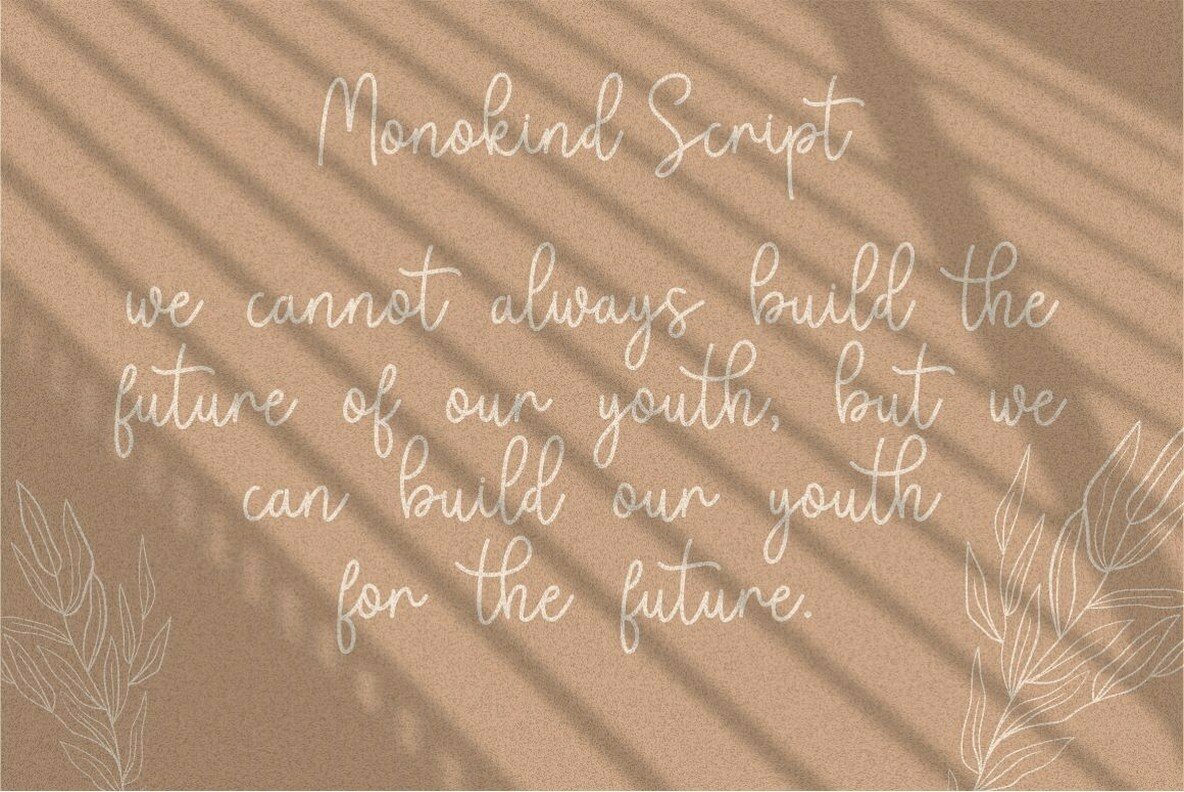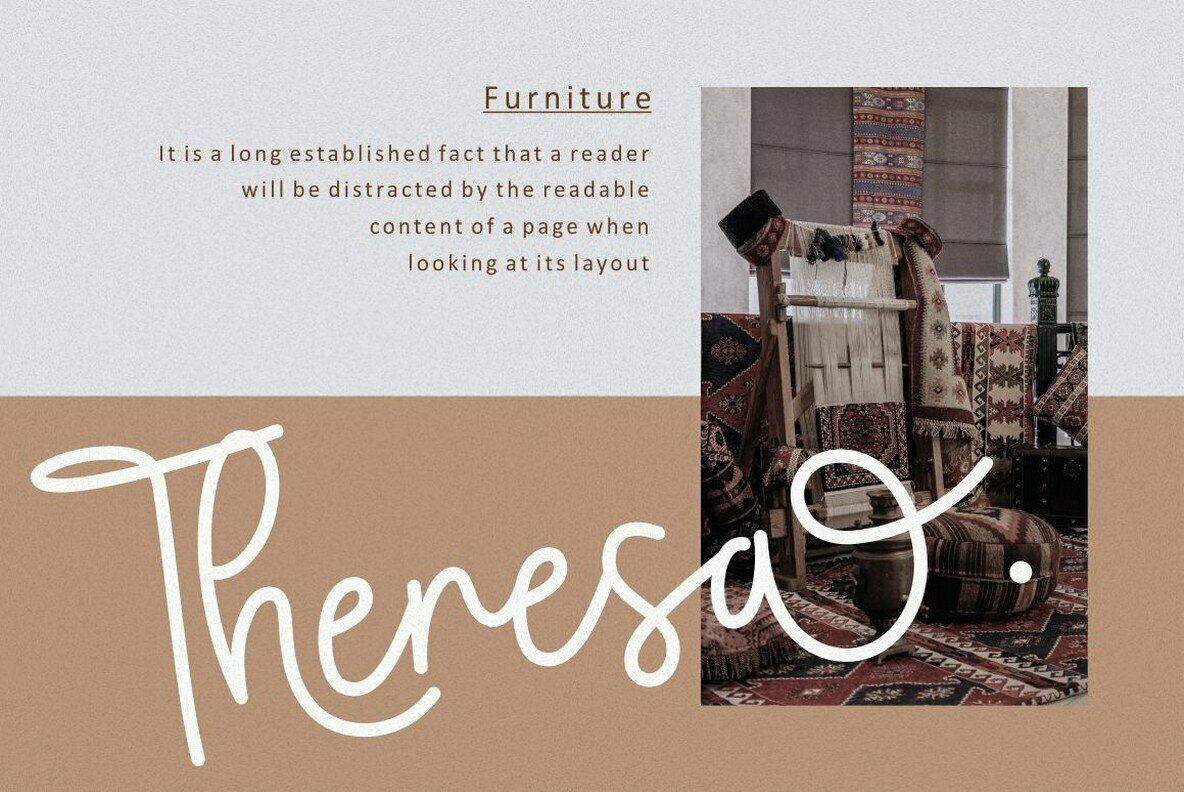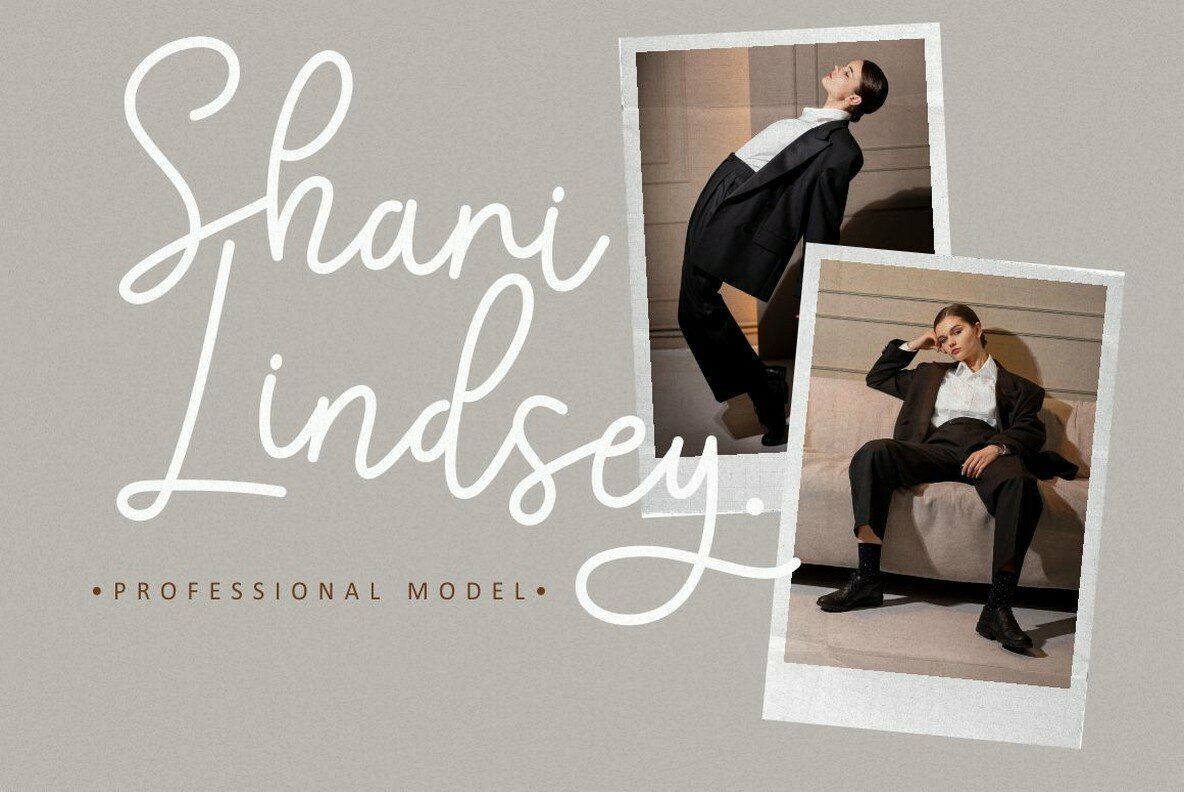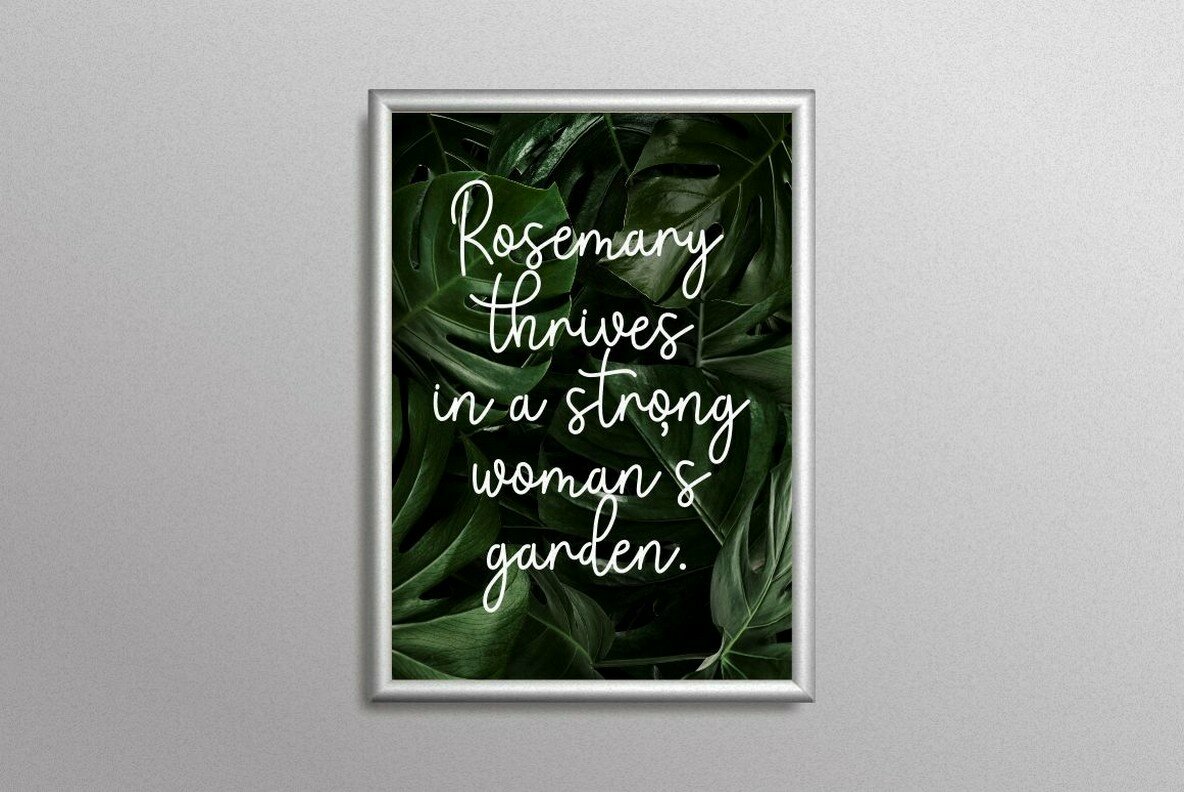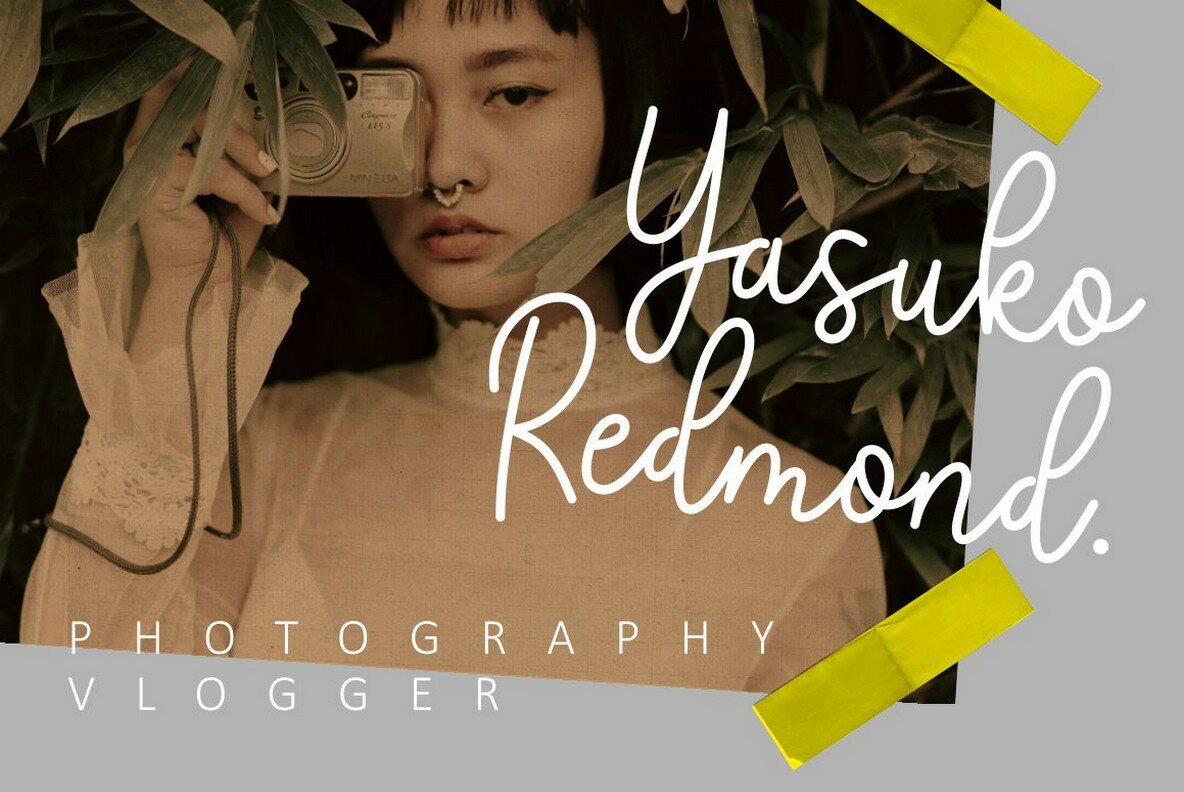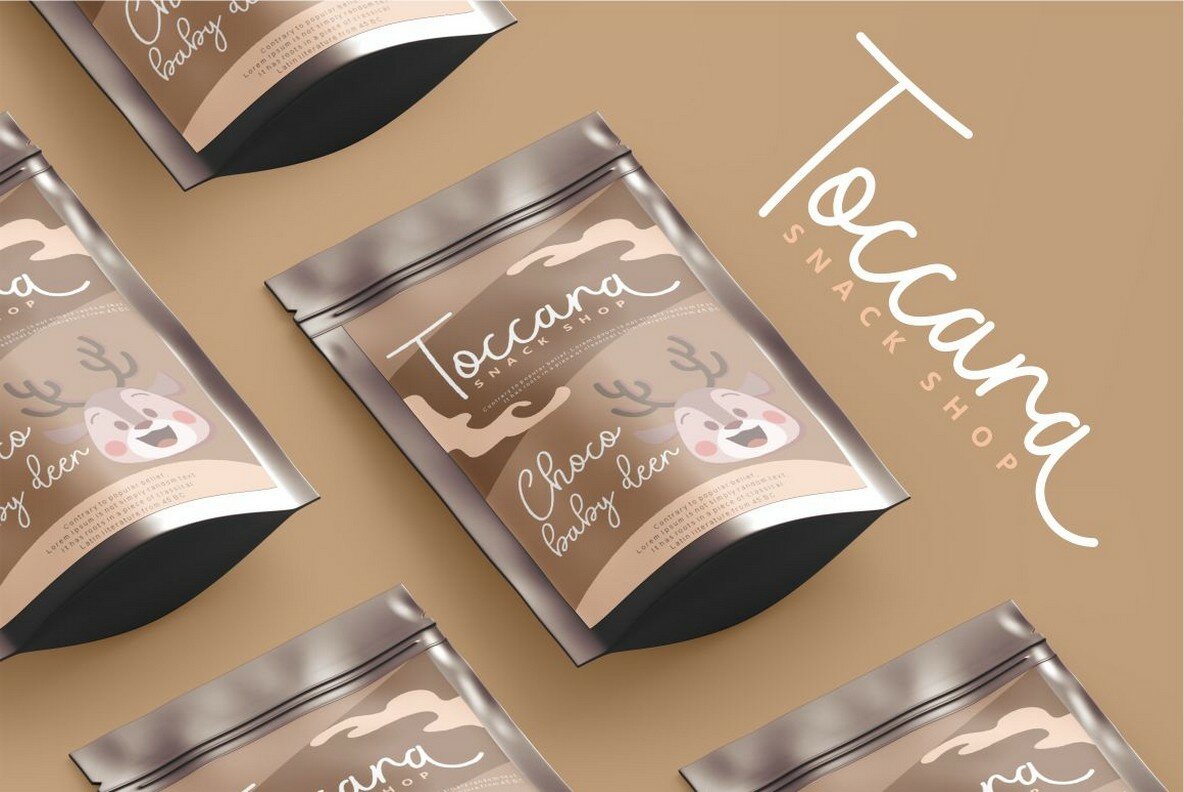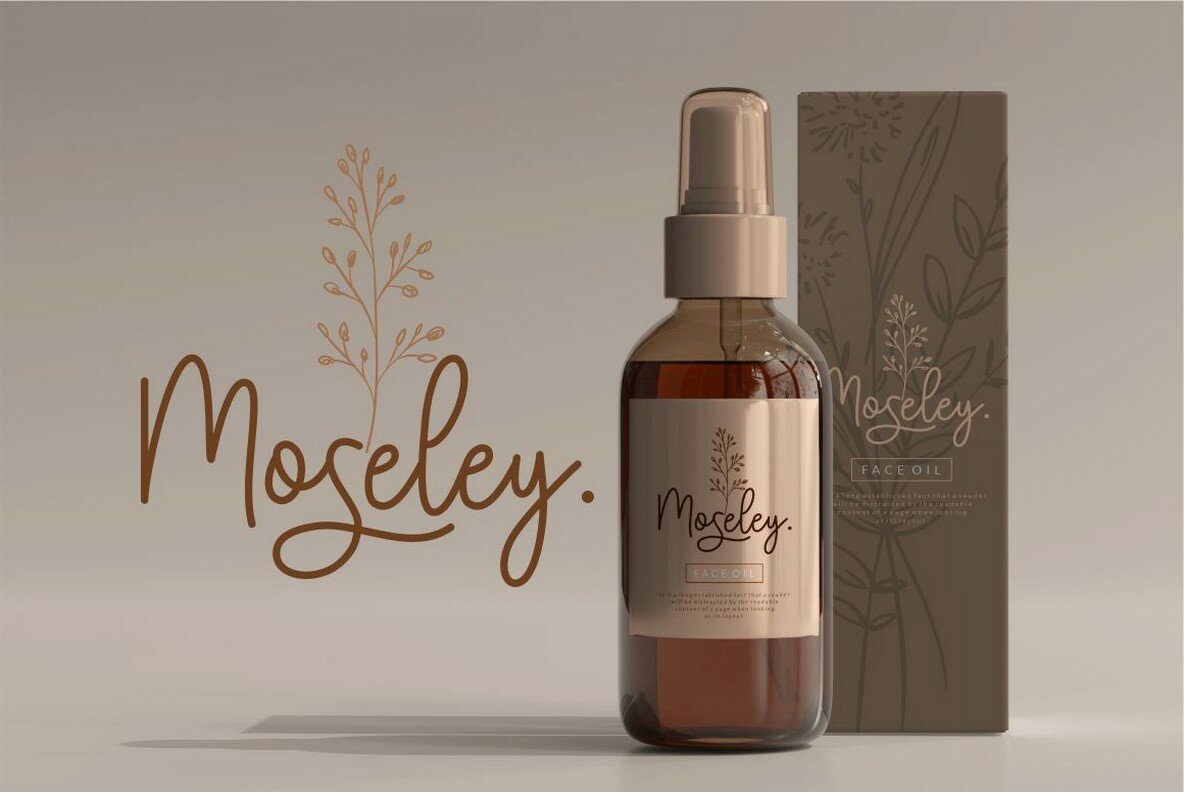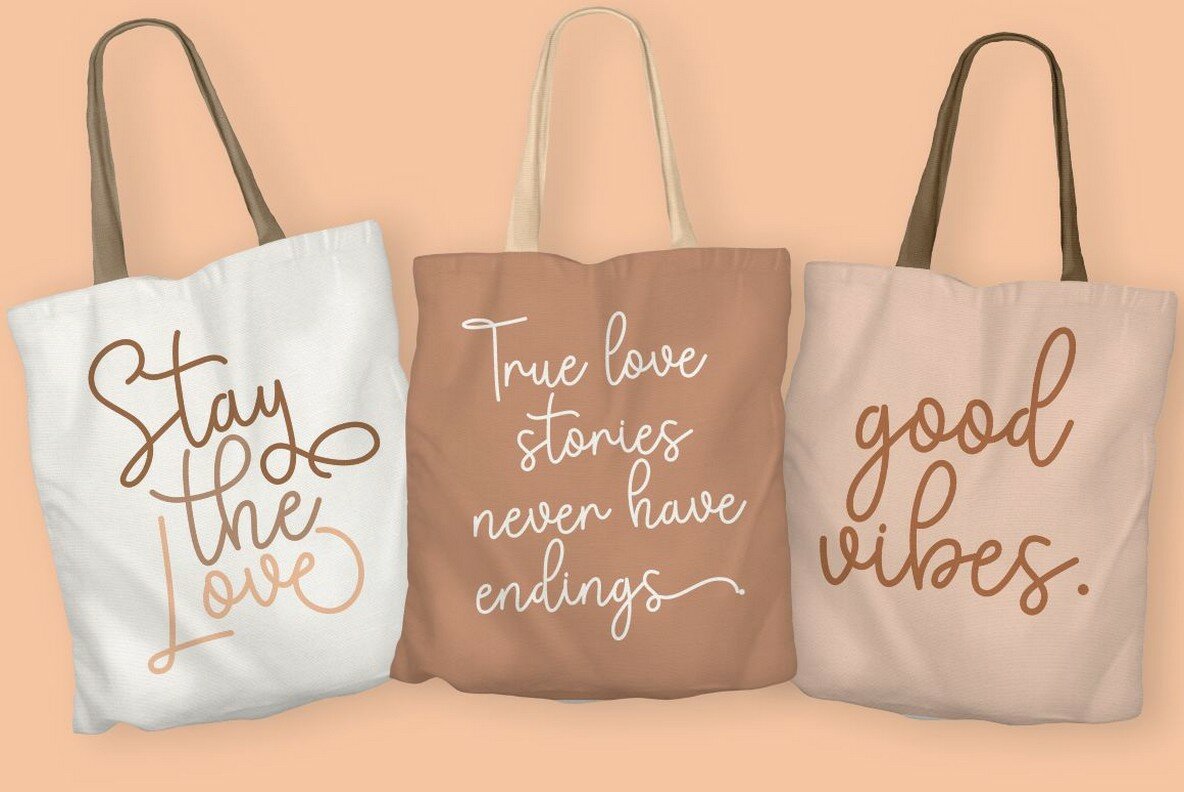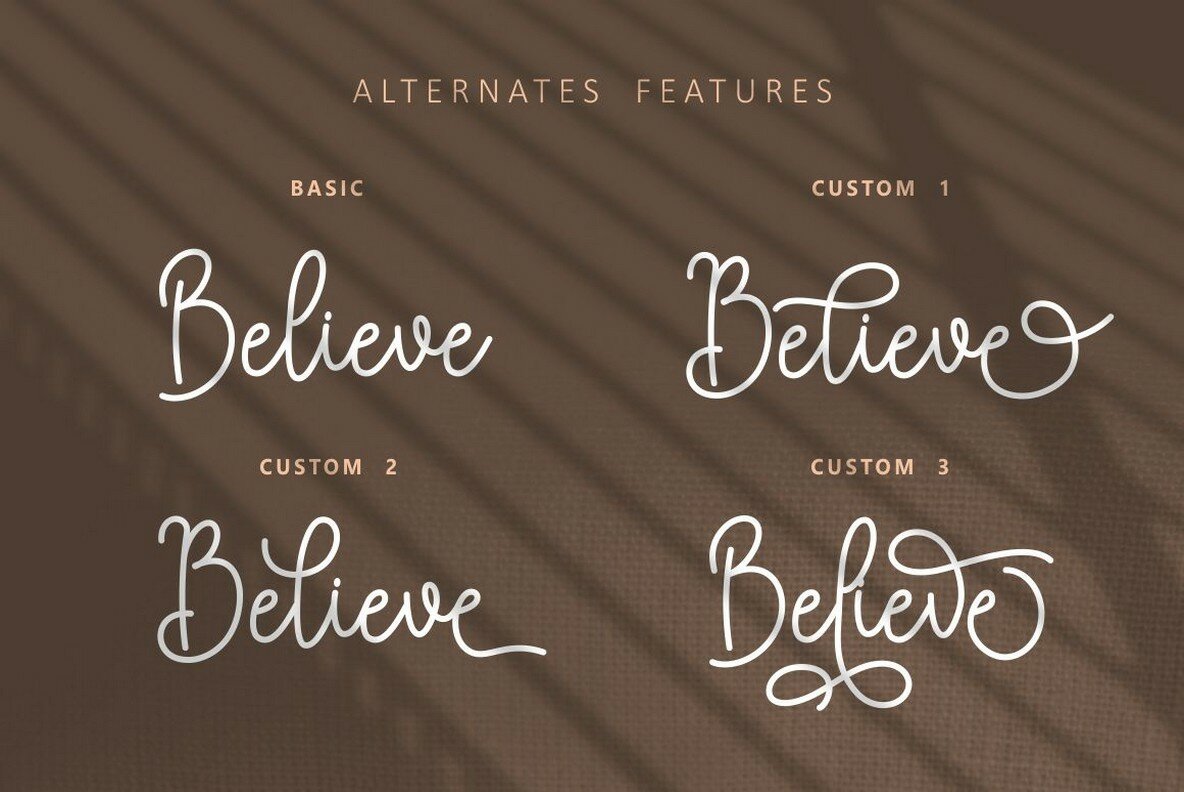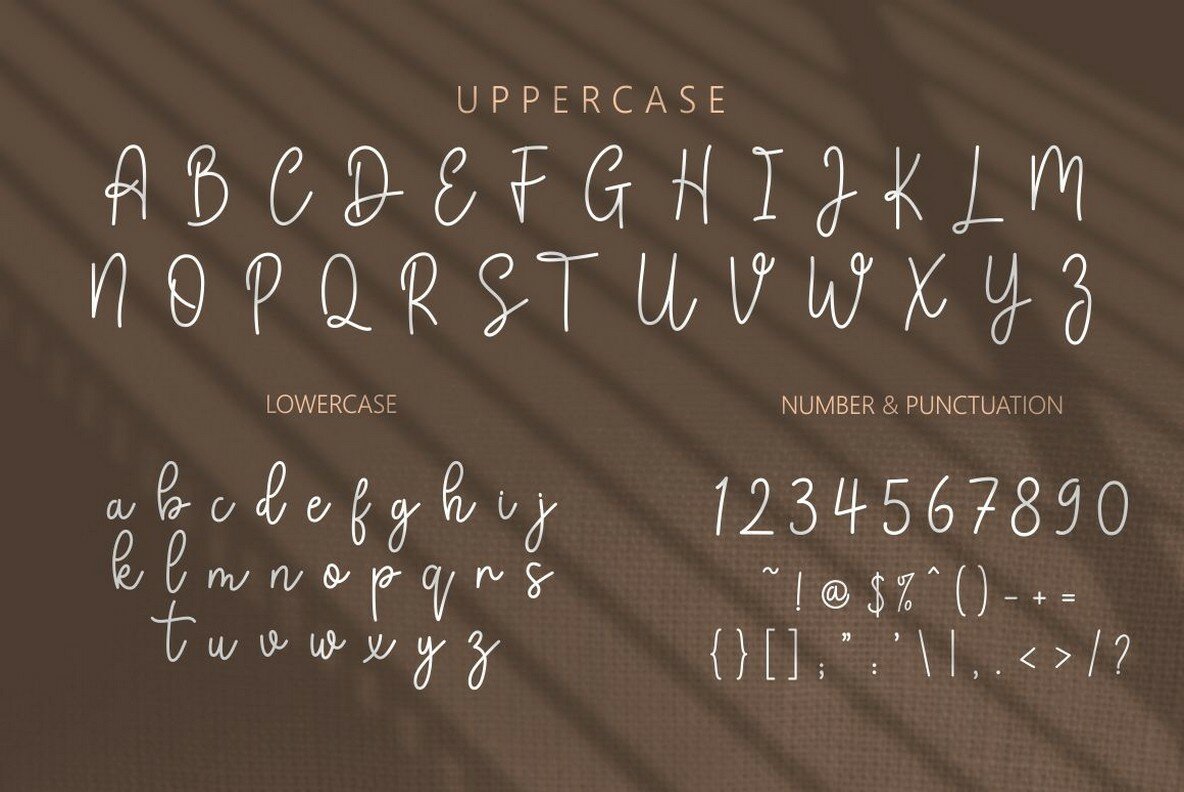
Monokind Script Font
Monokind Script
Monokind Script offers a graceful touch to any project with its elegant monoline design. This handwritten font captures the essence of natural handwriting, making it an ideal choice for designers looking to add a personal touch to their creative endeavors. With a wealth of open type features, including numerous alternates, Monokind Script facilitates outstanding lettering compositions. It is perfectly suited for a variety of applications such as signatures, branding, wedding invitations, elegant logos, and more.Monokind Script: Elegant Handwritten Monoline Font